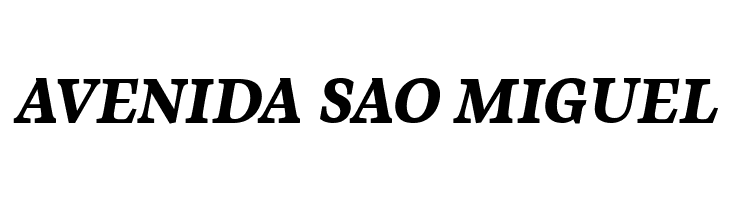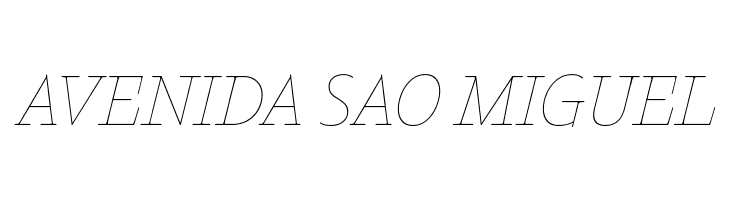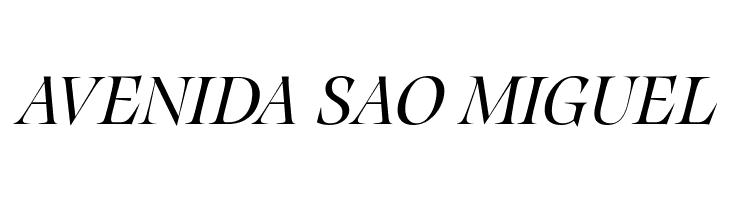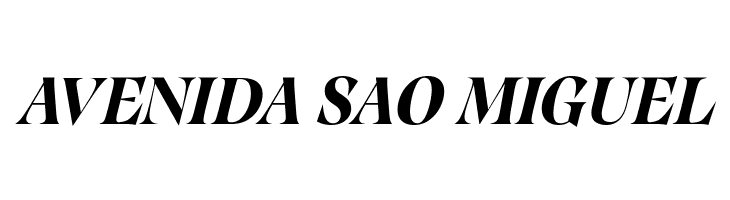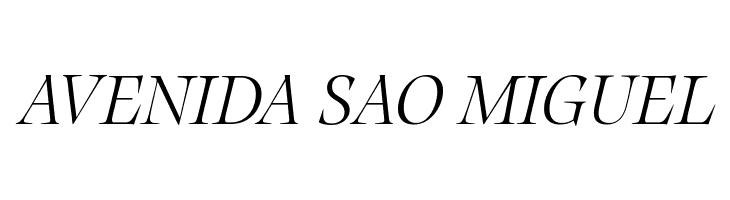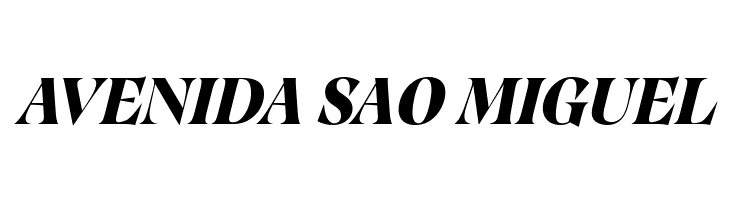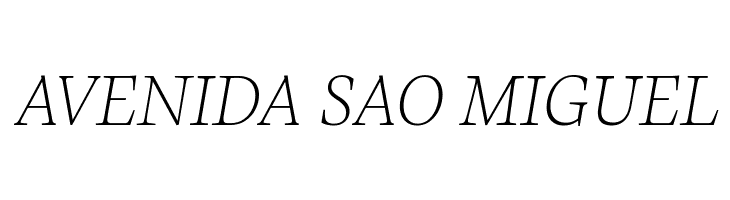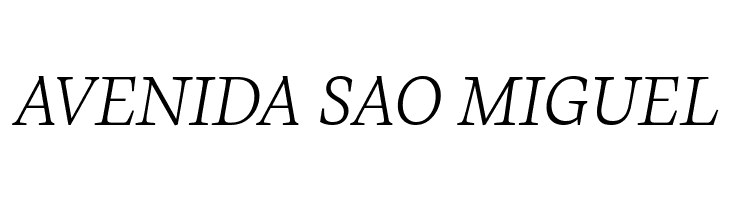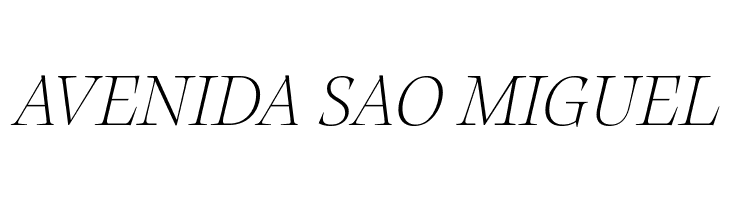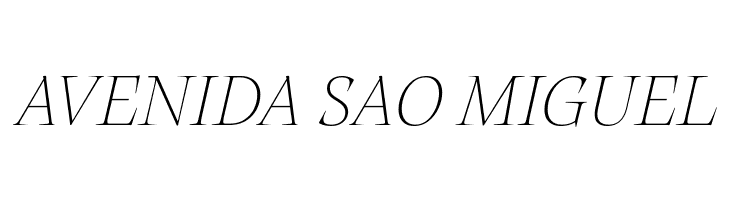
A bold, geometric typeface with a modern and assertive style.
A bold, high-contrast serif font with sharp serifs and a dramatic style.
A bold, italic font with high contrast and sharp serifs, exuding elegance and dynamism.
A bold serif font with high contrast and sharp serifs, ideal for headlines.
A bold, italic serif font with elegant, flowing letterforms and pronounced serifs.
A bold, high-contrast serif font with a modern and elegant style.
A bold, high-contrast serif font with an elegant italic style.
A refined serif font with thin strokes and elegant proportions.
An elegant, extra-light italic serif font with a classic and modern appeal.
An elegant italic font with smooth, flowing letterforms and refined contrast.
A classic serif font with medium contrast and elegant proportions.
A light, italic serif font with elegant, flowing strokes and medium contrast.
A clean, elegant monoline font with consistent stroke widths and a modern aesthetic.
An elegant monoline italic typeface with a refined and fluid appearance.
A classic serif font with elegant proportions and refined strokes.
A classic serif font with semi-bold weight and elegant, sharp serifs.
A semi-bold, italic serif font with elegant and dynamic styling.
A refined serif font with thin strokes and high contrast, exuding elegance and sophistication.
A thin, italic serif font with a refined and elegant style.
An elegant and sophisticated italic typeface with graceful curves.
A refined serif font with elegant, elongated strokes and high contrast.
A refined italic serif font with elegant curves and classic styling.
A bold serif font with strong strokes and classic elegance.
A bold, italic serif font with a classic and elegant style.
A classic serif font with elegant strokes and a refined appearance.
Elegant serif font with a classic italic style.
A bold serif font with strong, thick strokes and a classic yet modern appeal.
A bold, italic serif font with a dynamic and elegant style.
A refined serif font with thin strokes and elegant design.
An elegant, extra-light italic serif font with refined curves and classic charm.
A classic italic serif font with elegant, flowing curves.
A refined serif font with elegant, thin strokes and classic proportions.
A refined, light, and italic font with elegant curves and a sophisticated style.
A classic serif font with a modern twist, offering elegance and sophistication.
A semi-bold serif font with a classic yet modern appeal.